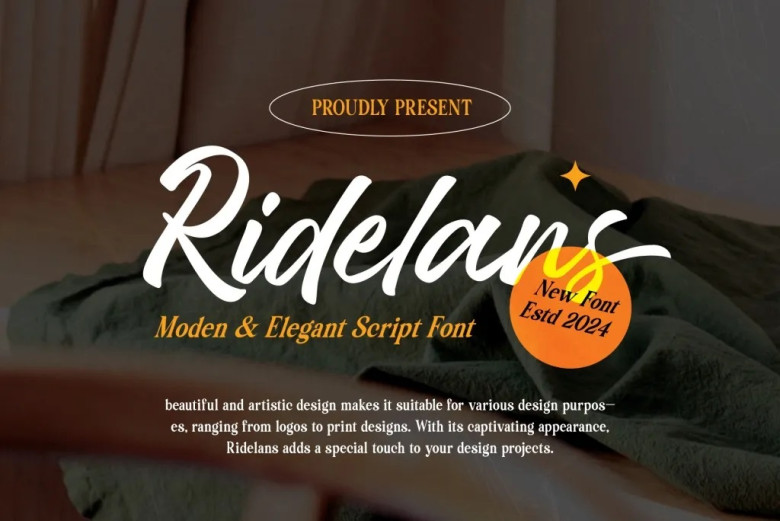
Ridelans Font
RIDELANS Font – the epitome of modern elegance within script typography! Add style and elegance to your designs using RIDELANS’ graceful script font designed to bring out its best.
Built with meticulous precision and skill, this font seamlessly marries modern style and classic elegance for optimal use across a range of applications.
Ridelans Handwritten Script Font